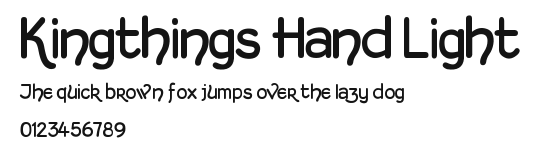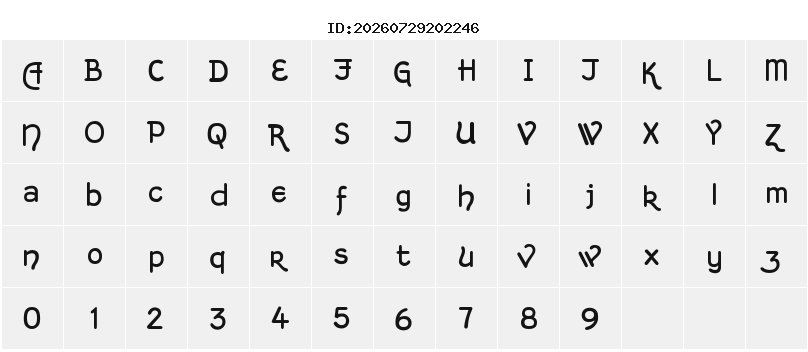
Kingthings Hand Light Preview
• Font Name: Kingthings Hand Light
• Full Font Name: Kingthings Hand Light
• Designer: Kevin King. Exeter. 2002
• Description: handwriting light
About Kingthings Hand Light.ttf
Kingthings Hand Light.ttf is a modern, elegant sans-serif font designed for ultimate readability and visual harmony. Perfect for branding, headlines, web design, and print materials.